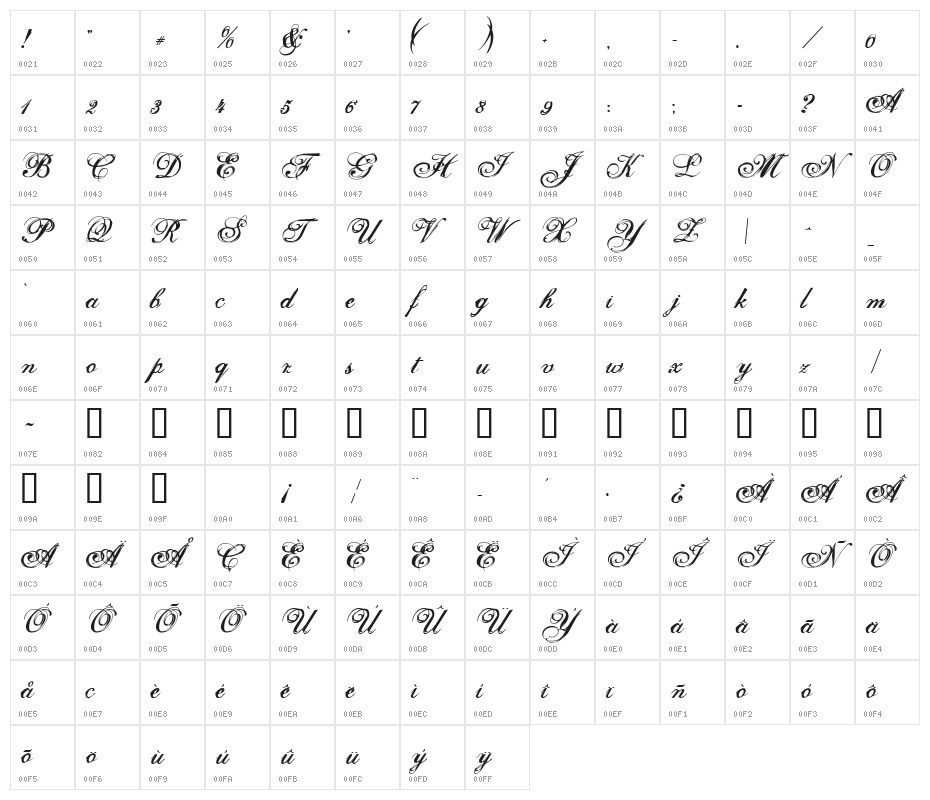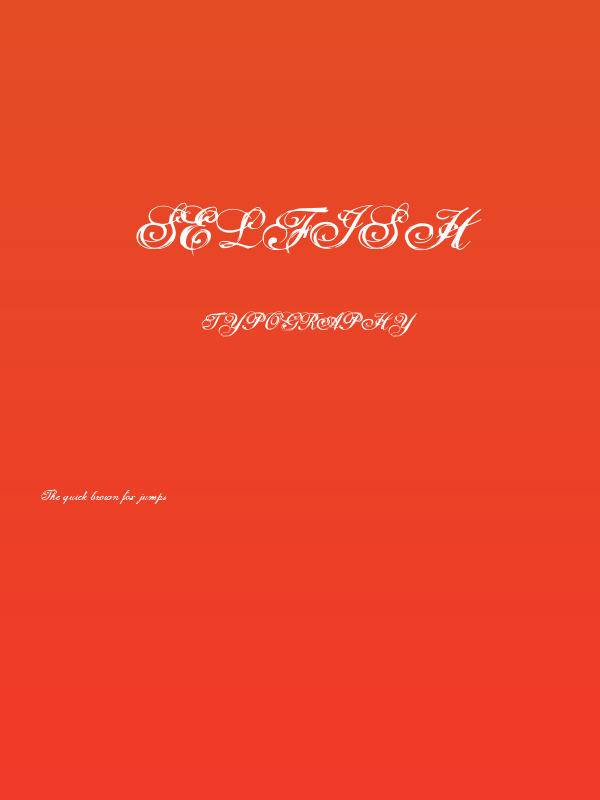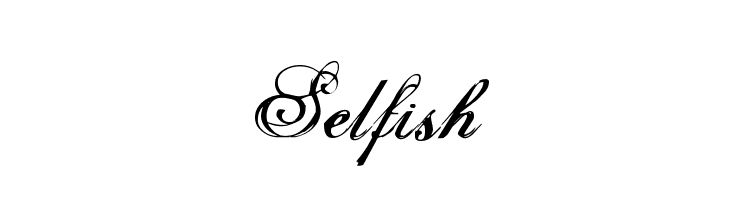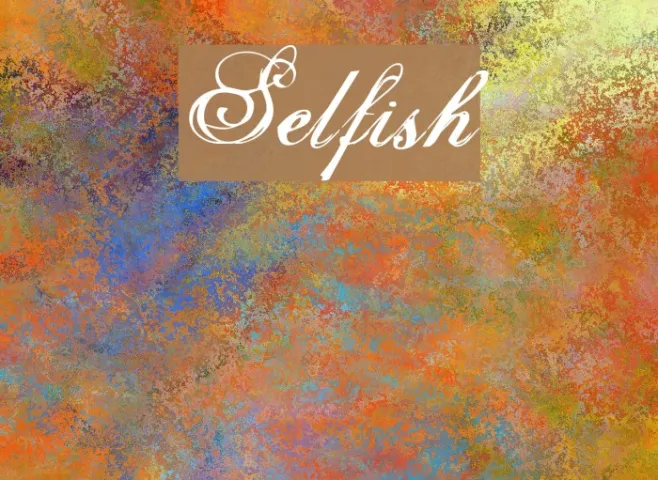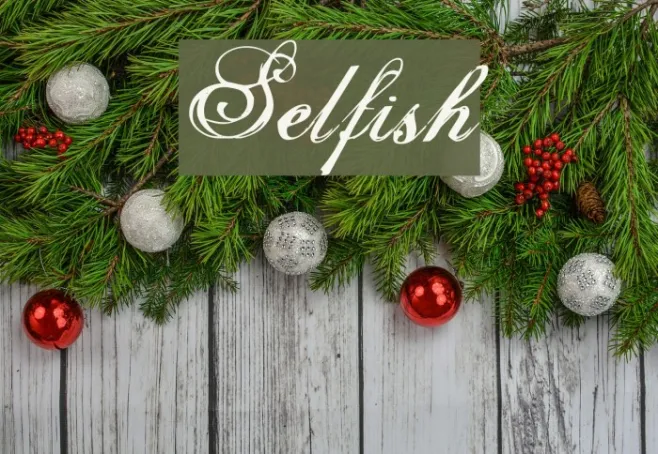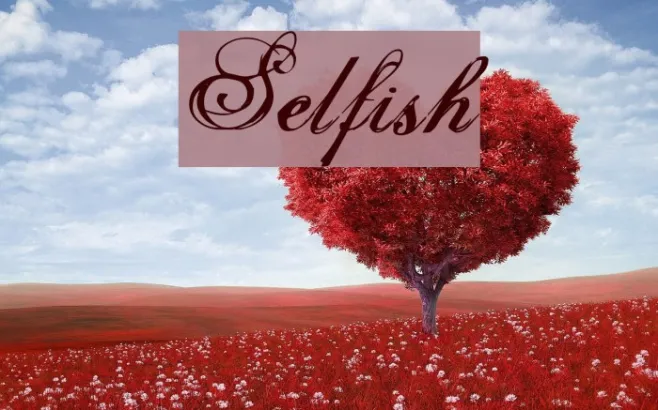
Selfish Font
Selfish Description
This font features an elegant and ornate script style, characterized by its flowing and interconnected letterforms. The uppercase letters are particularly decorative, with elaborate swirls and flourishes that give them a sophisticated and artistic appearance. The lowercase letters maintain a consistent style, with smooth curves and a slight slant that enhances readability while preserving the font's decorative nature. The numerals are styled to match the letters, with a graceful and fluid design. Special characters are included, maintaining the overall aesthetic with intricate detailing. This font is ideal for projects that require a touch of elegance and sophistication.
| Use Case | Logos, Invitations, Decorative text |
| Proposed Projects | Ideal for wedding invitations, luxury branding, elegant signage, and artistic projects. |